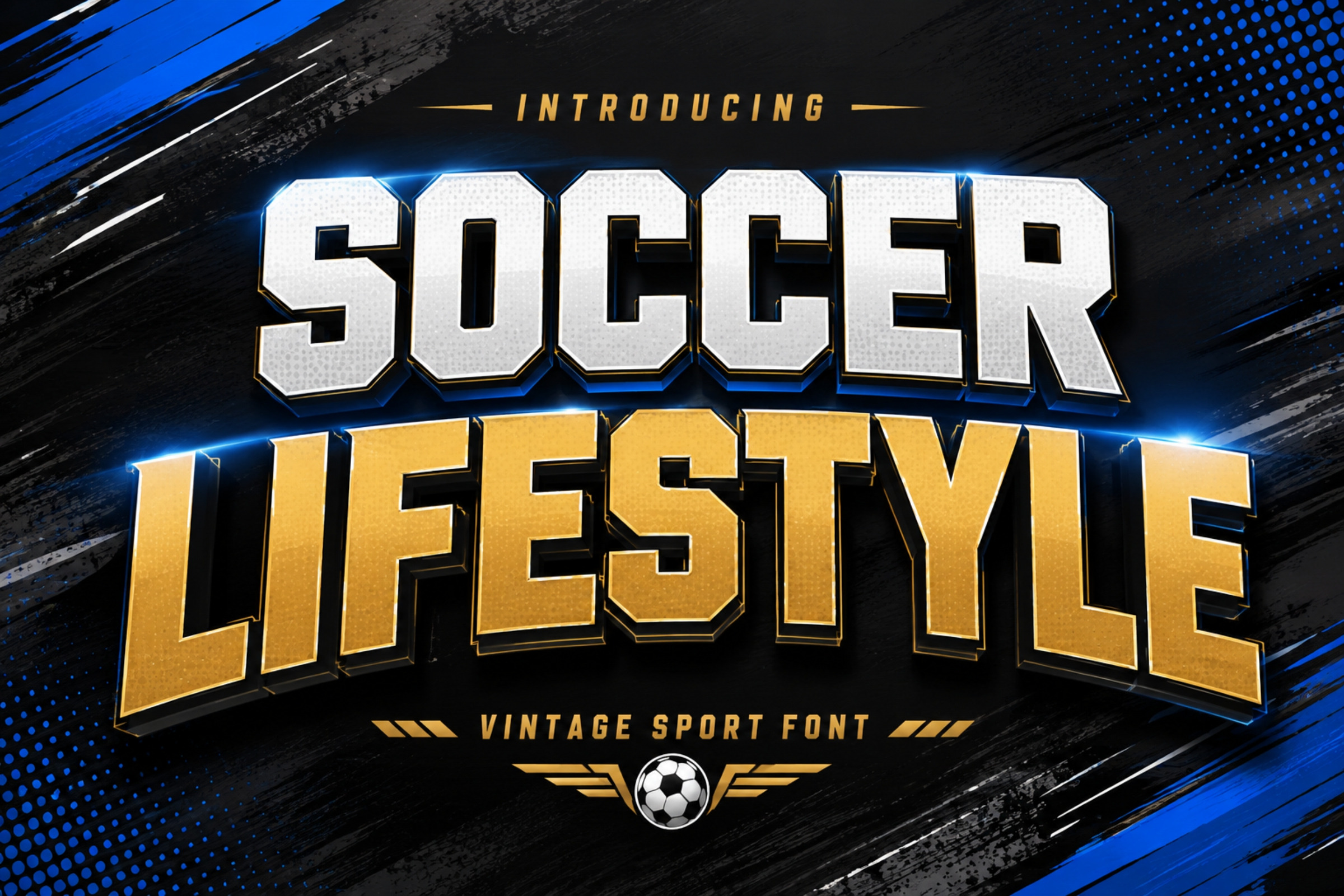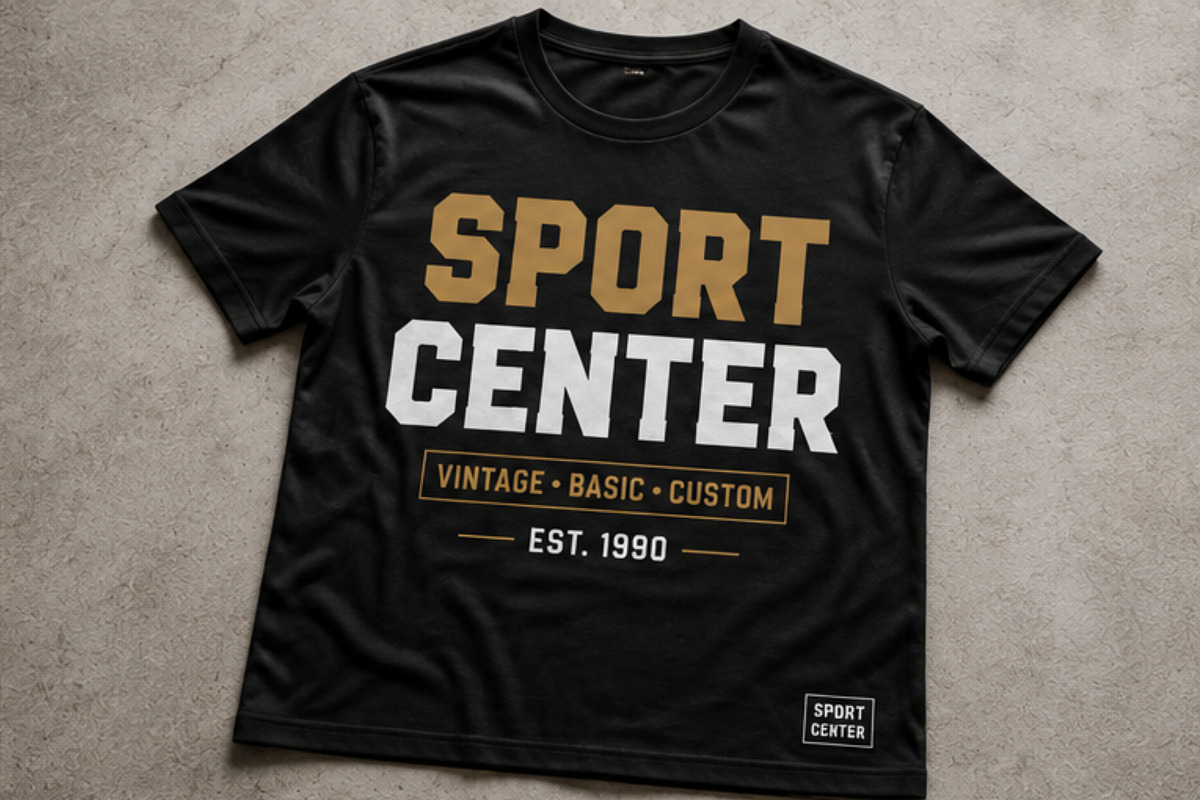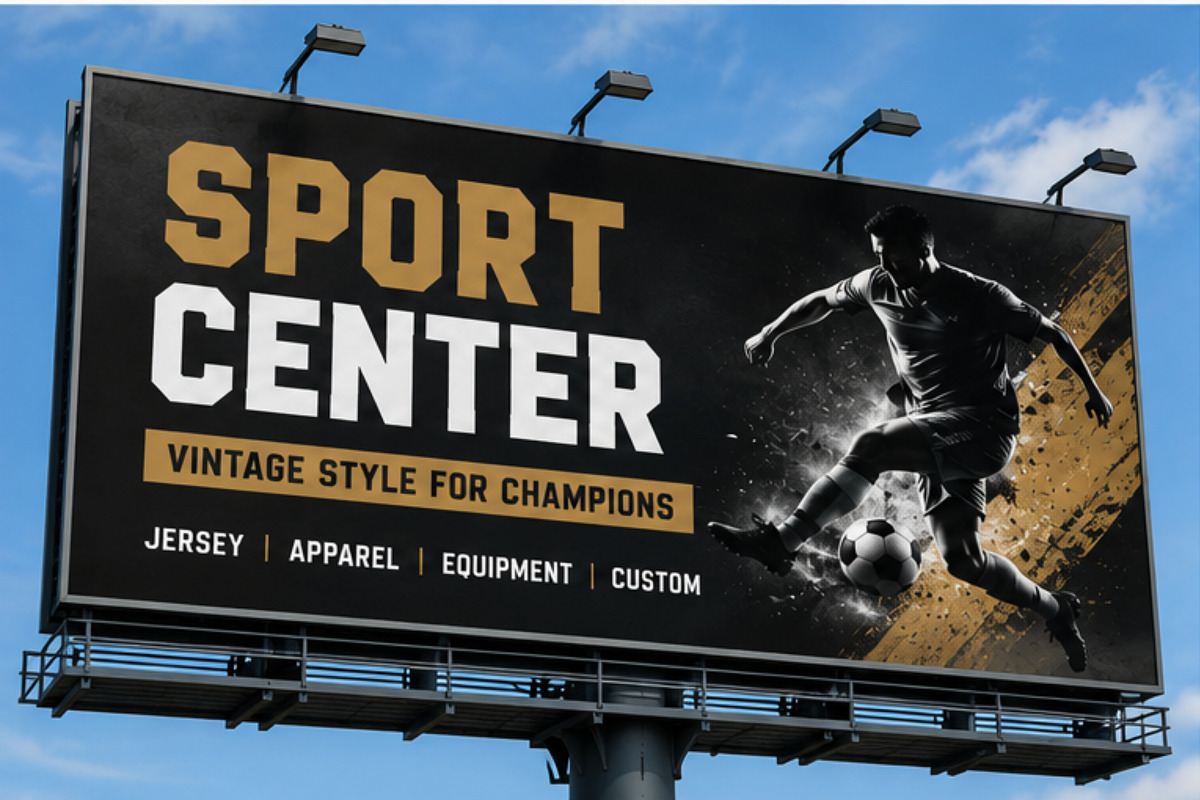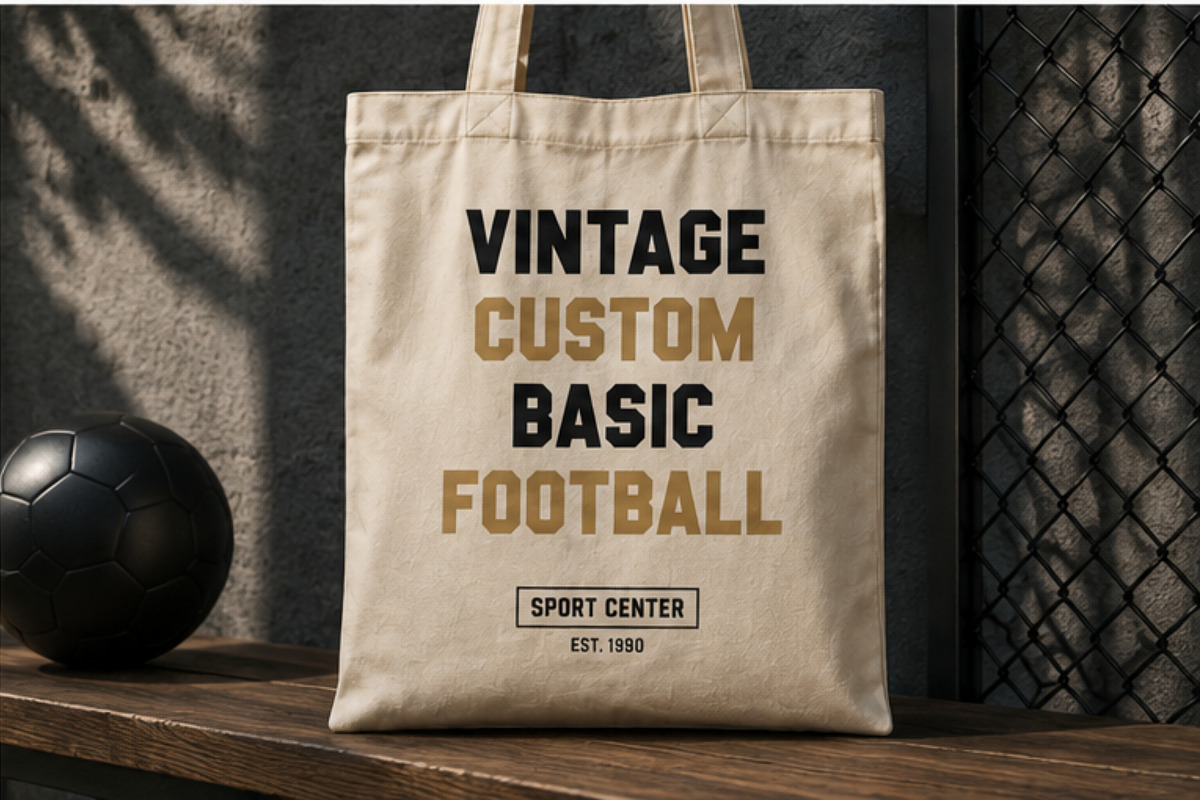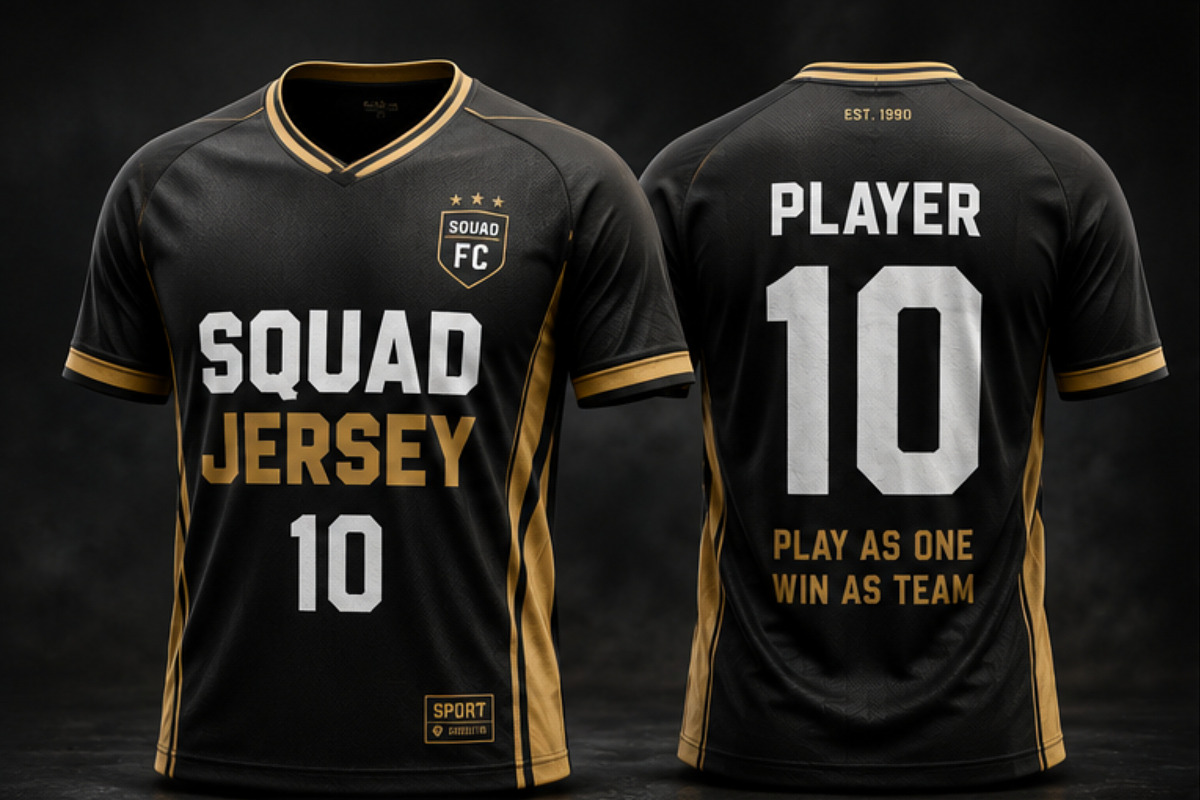
Soccer Lifestyle Font – Bold Vintage
Bring an energetic athletic look to your creative projects with Soccer Lifestyle Font, a bold and powerful display typeface inspired by classic soccer jerseys, vintage sports graphics, team apparel, and modern athletic branding. Its strong geometric letterforms make it perfect for designs that need a confident, sporty, and eye-catching appearance.
Ideal for creating soccer jerseys, team logos, sports apparel, posters, banners, merchandise, stickers, social media graphics, headlines, and branding projects. The bold vintage-inspired character works especially well for both classic football aesthetics and contemporary sports designs.